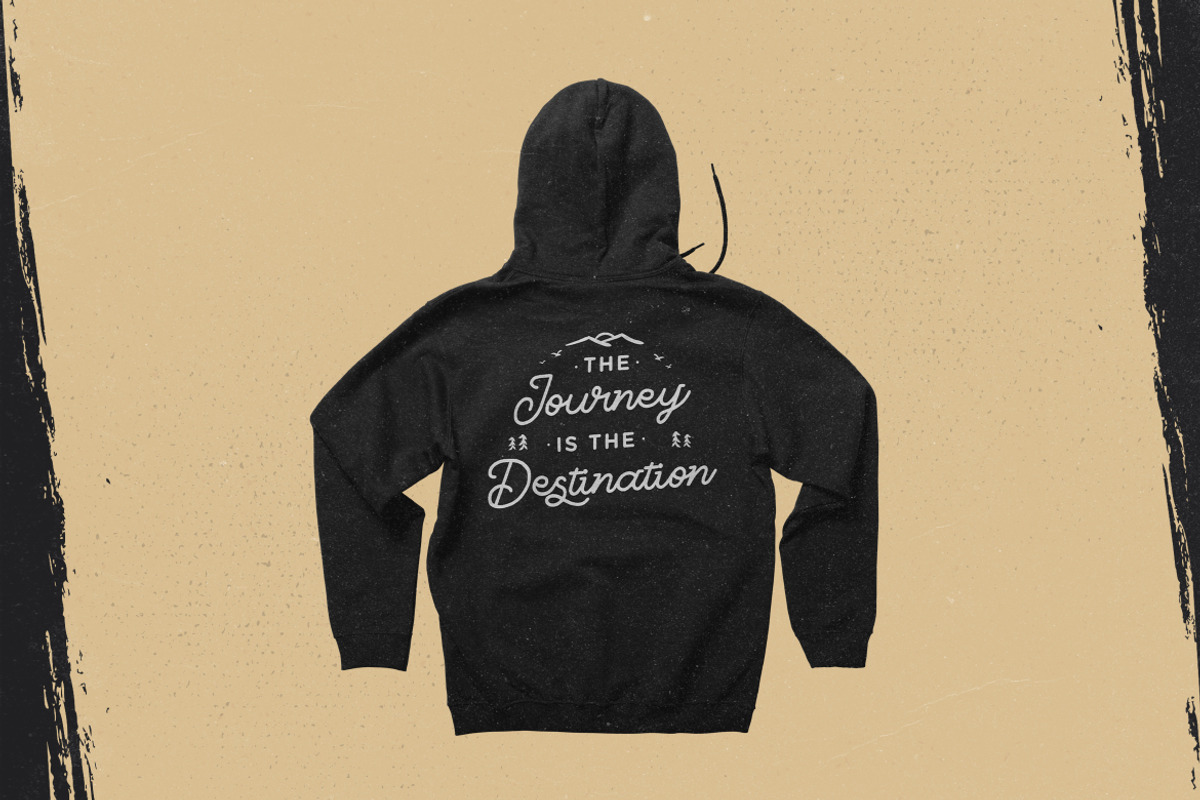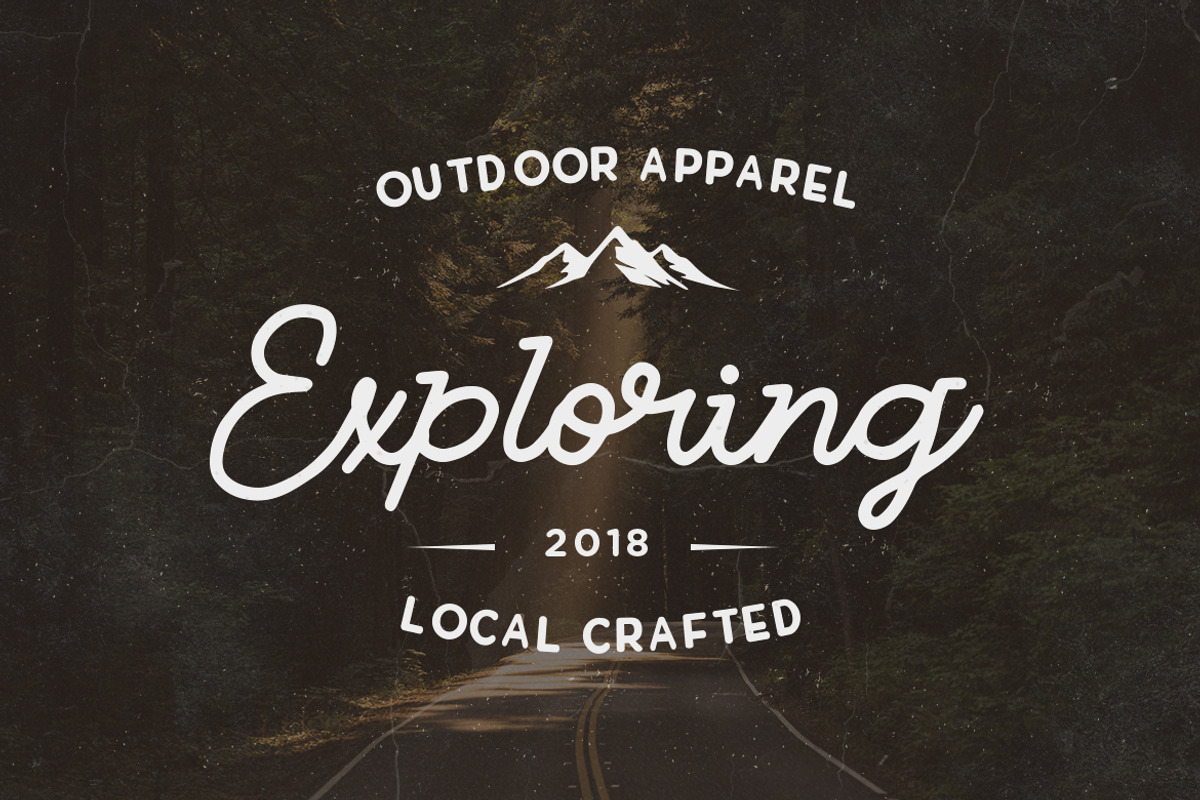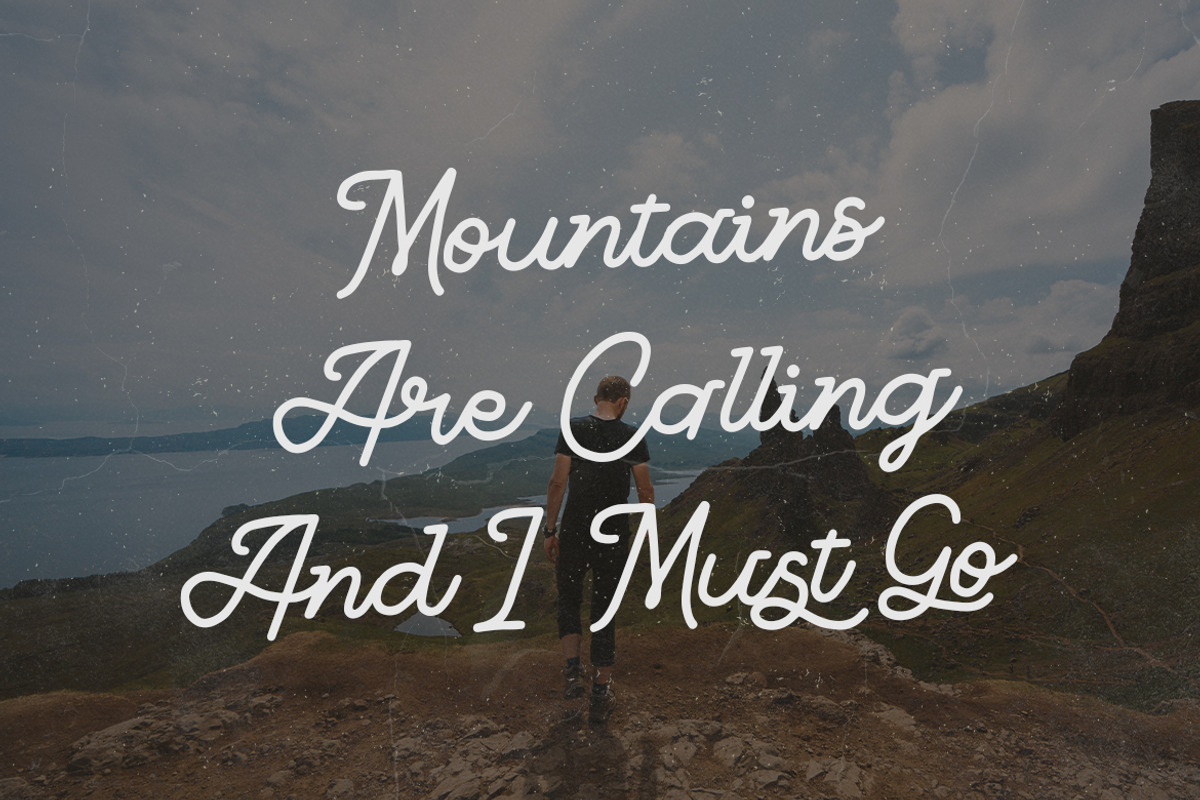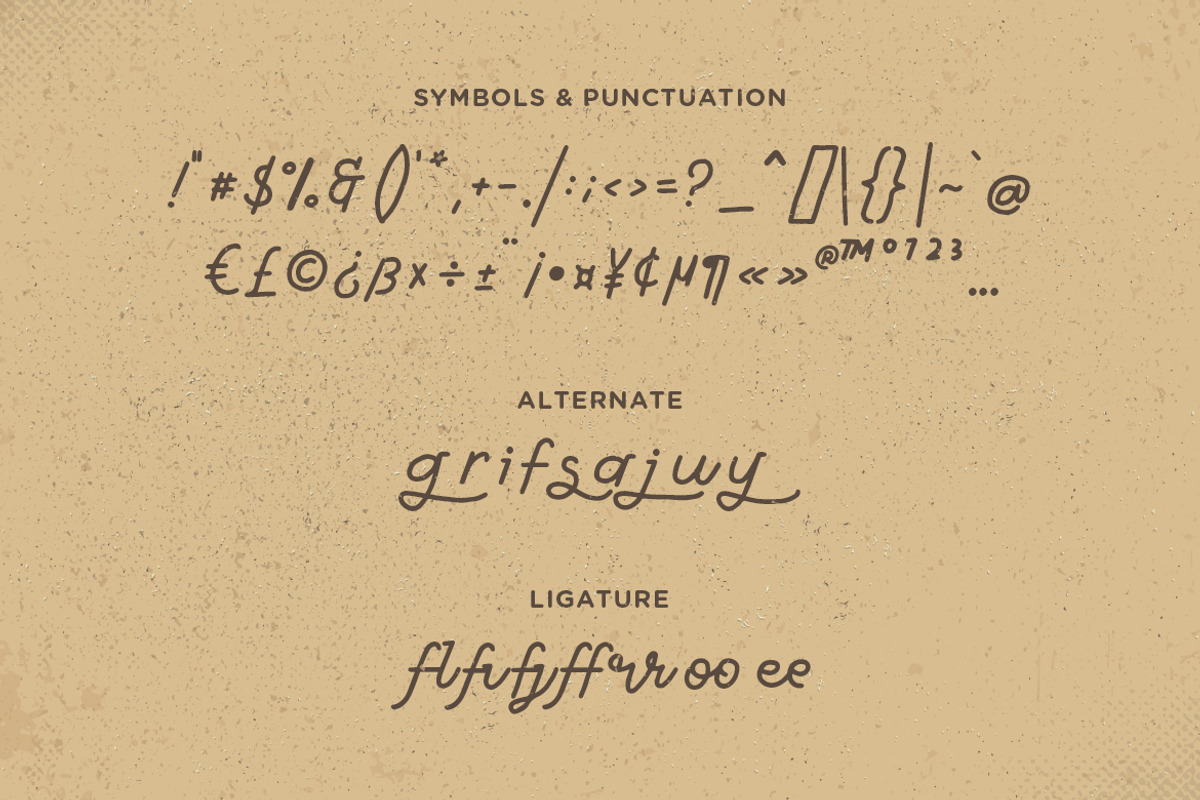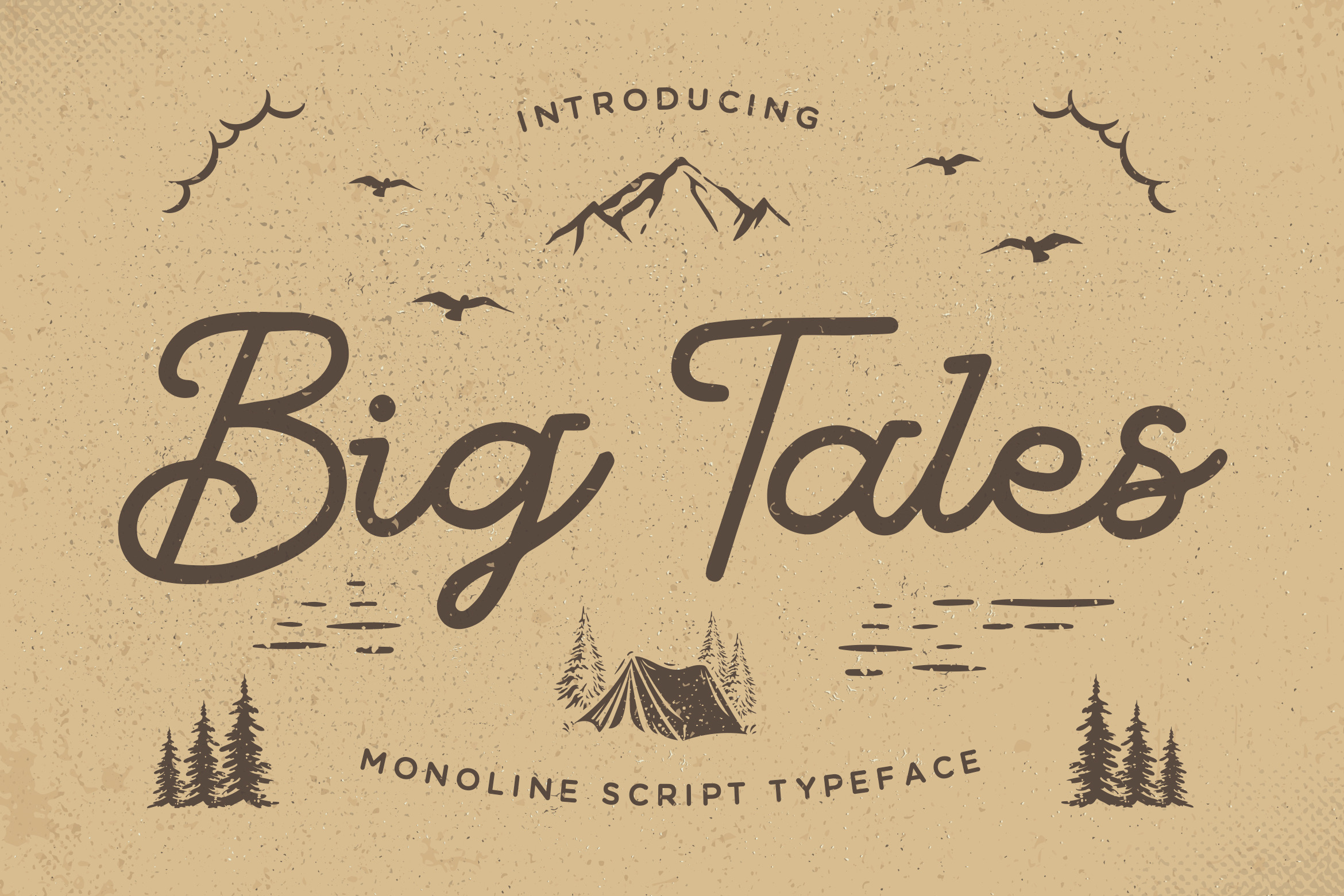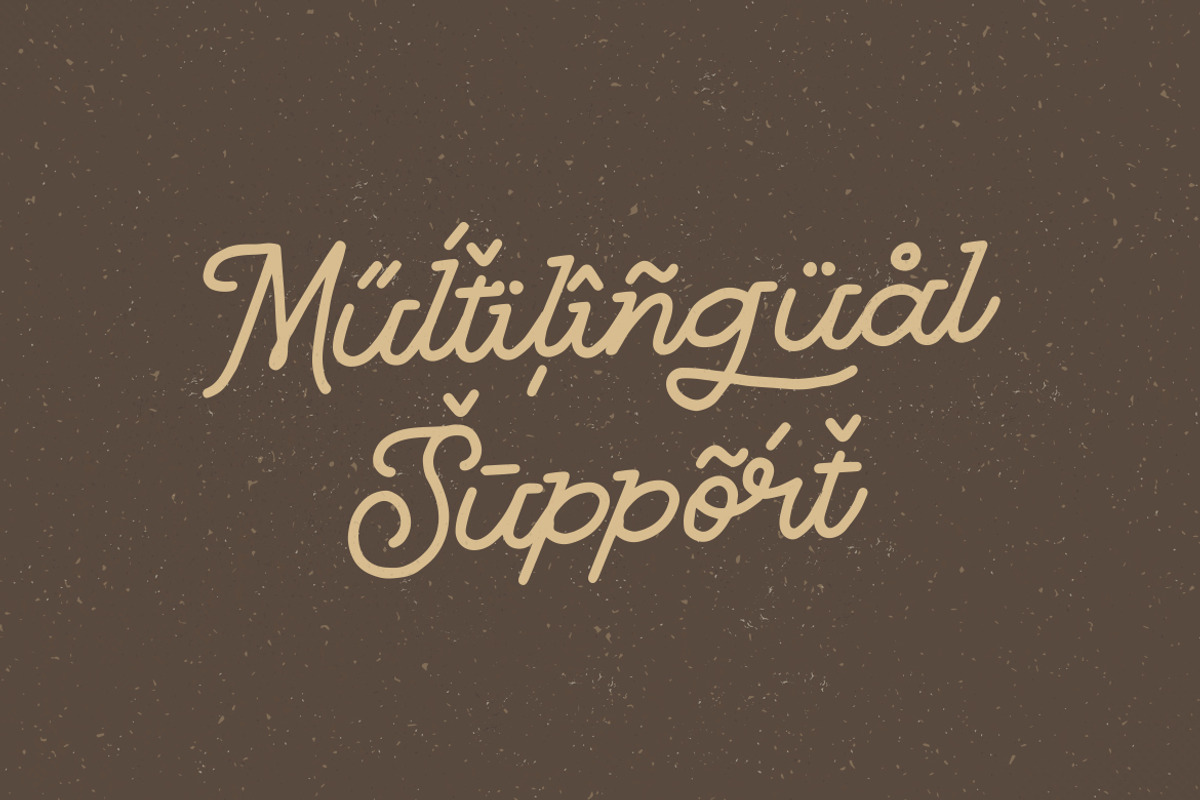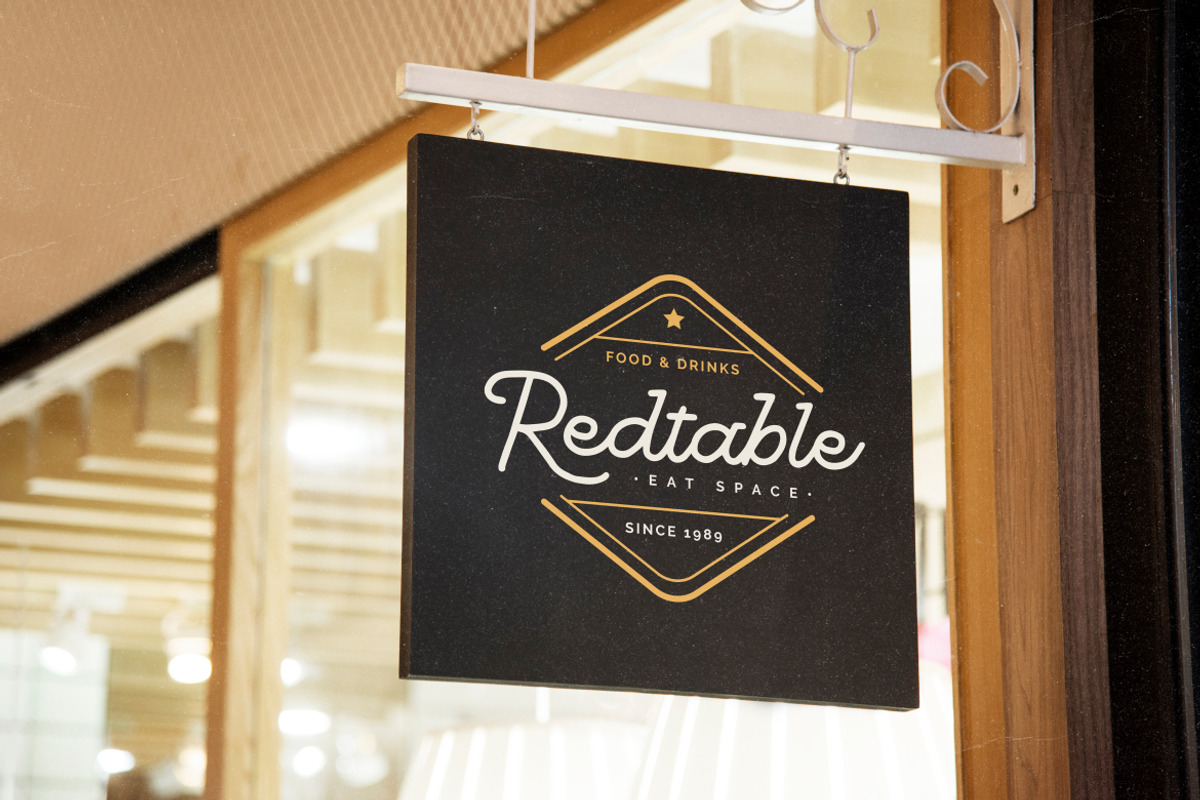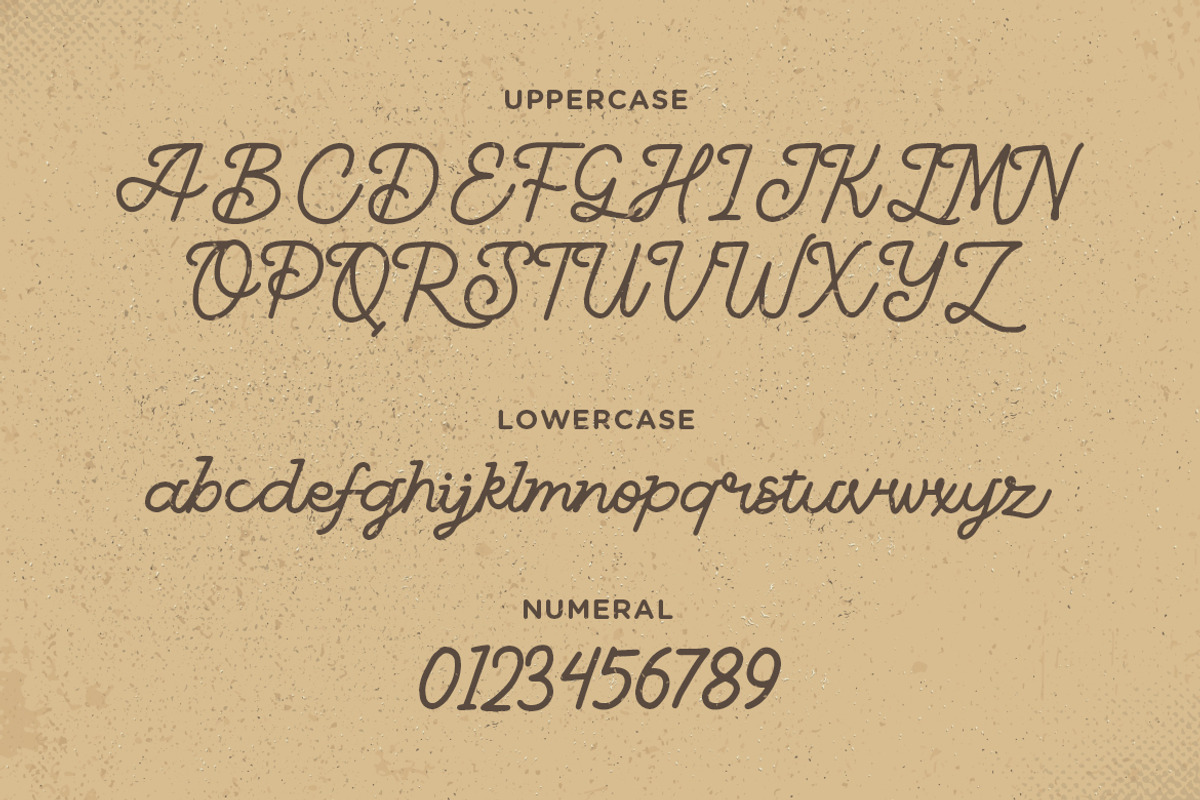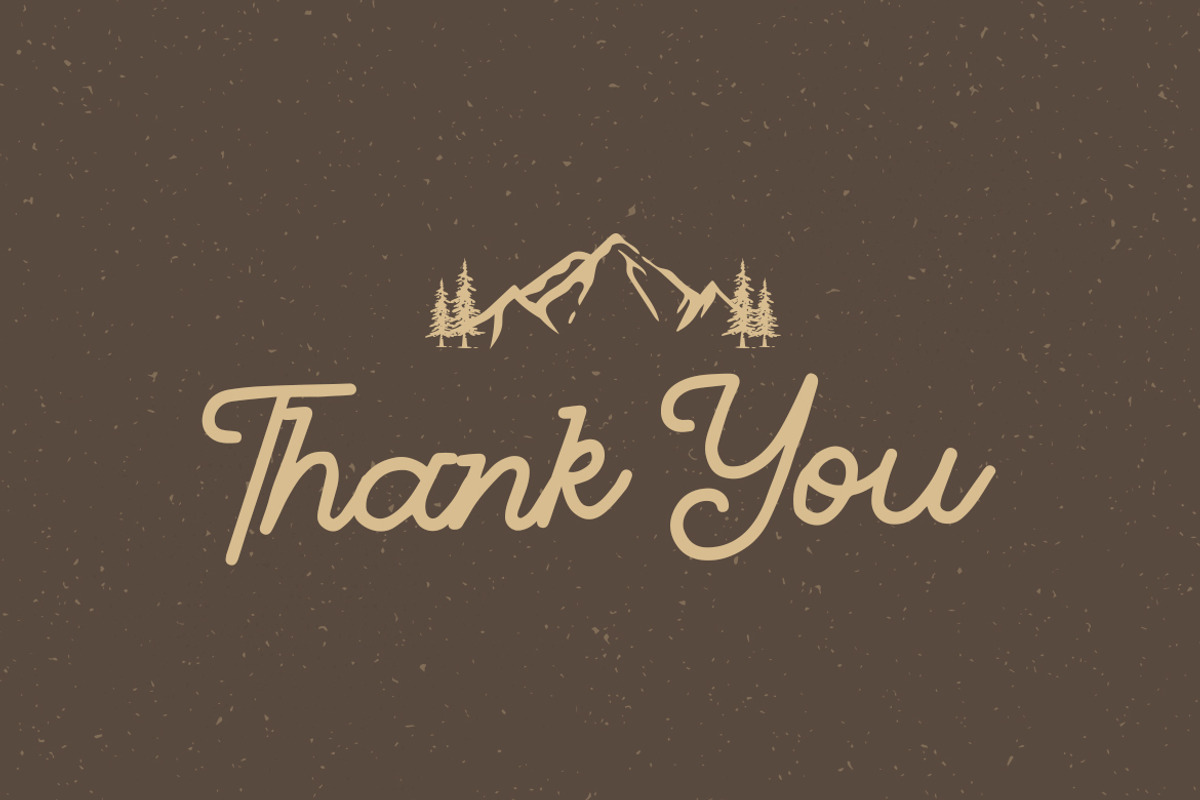
Big Tales - Monoline Script Typeface
Big Tales is a monoline script font. It maintains its classy calligraphic influences while feeling contemporary and fresh. This versatility will appeal to a wide range of crafty ideas, from letterheads and titles, to stationery.
- Symbols & Punctuation
- Numeral